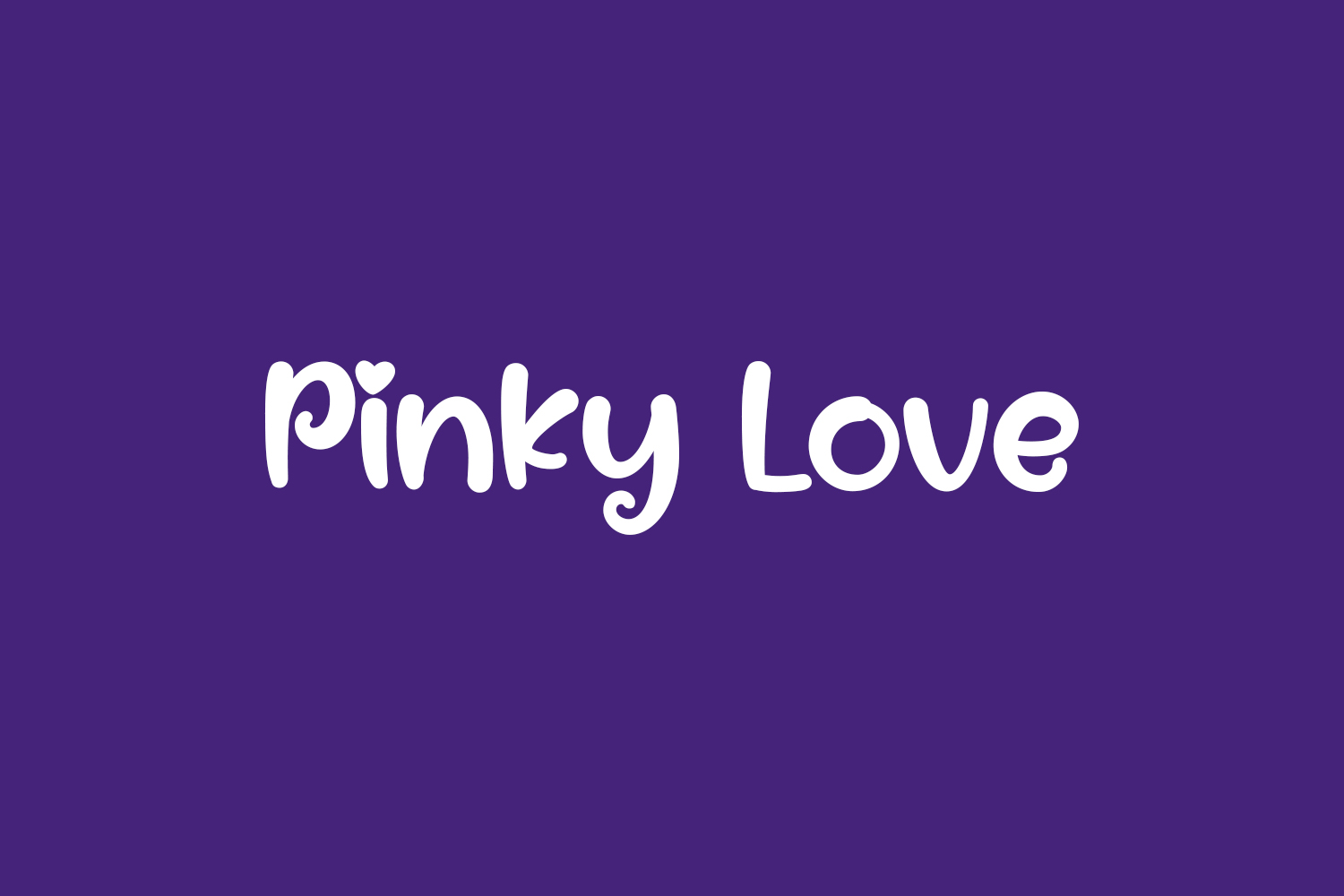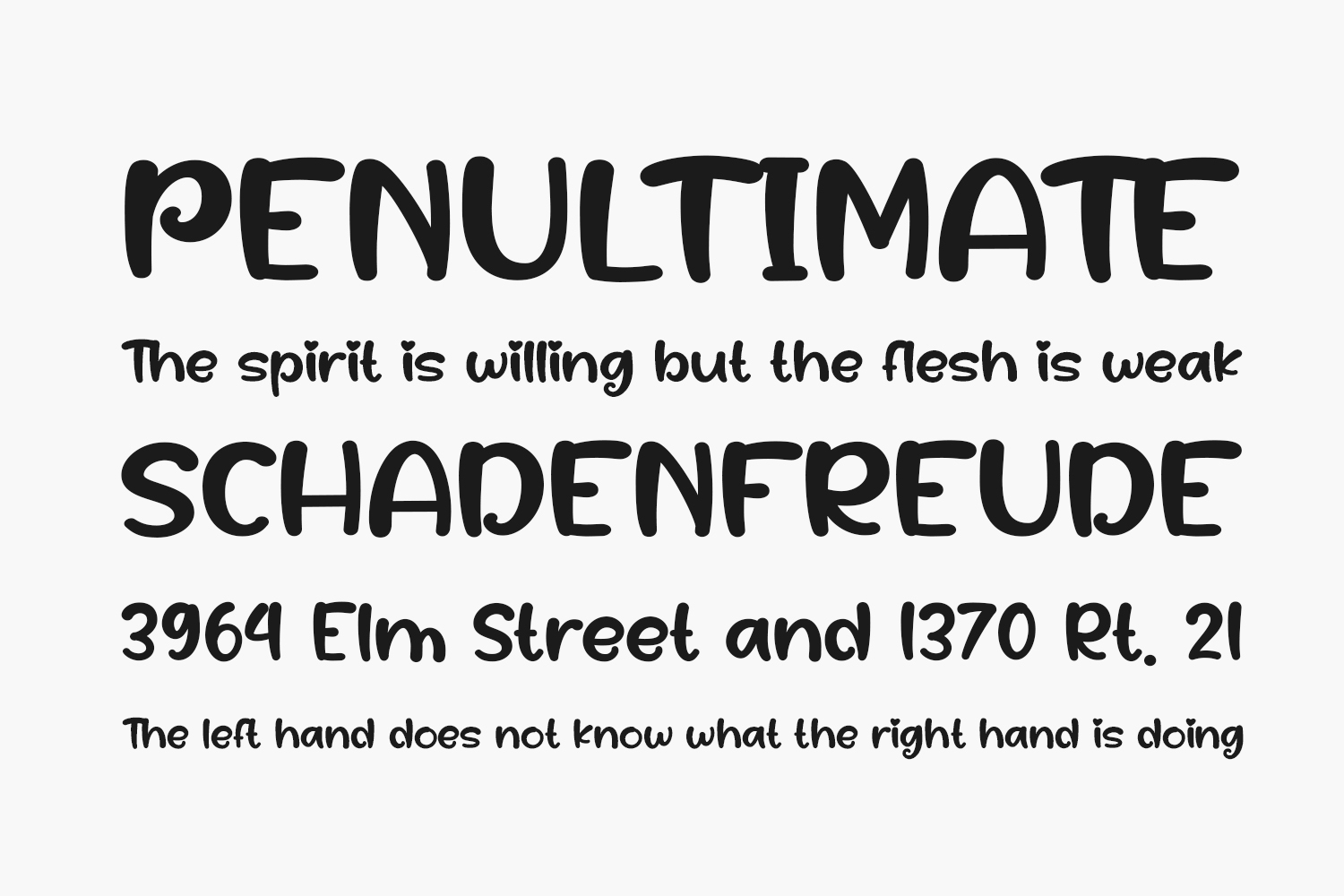
Pinky Love Free Font exudes charm and sophistication with its playful yet refined handwritten style. Perfect for invitations, thank you cards, quotes, greeting cards, logos, and business cards, this font adds a personalized flair to any design. Download the font for free if you need it for personal use or purchase the full version for commercial use.
Designed by Nirmala Creative